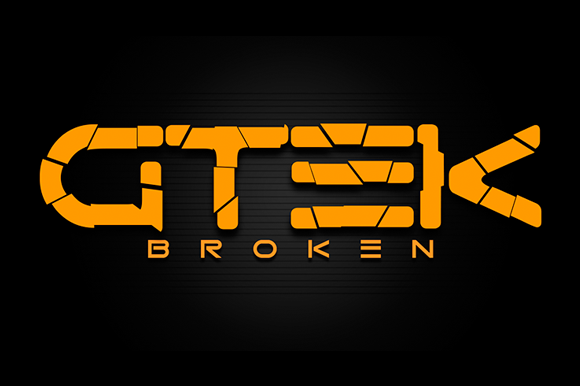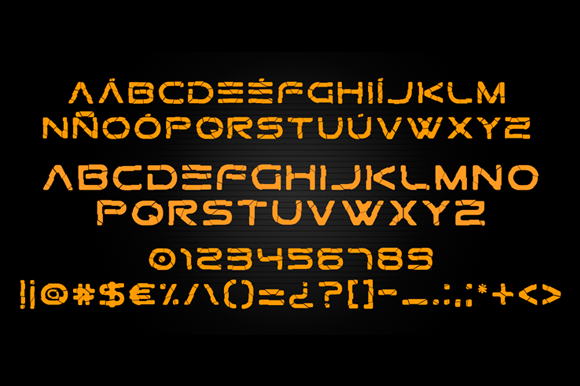
The Perfect Blend of Quirkiness and Readability: Unveiling the Gtek Broken Font
As designers, we’ve all been there – staring at a blank canvas, desperately seeking the perfect font to bring our creative vision to life. It’s that moment of epiphany when the right typeface clicks, and suddenly, the entire project falls into place. For those who crave a unique sans serif font that stands out from the crowd, the Gtek Broken Font is an absolute game-changer.
This quirky yet readable font is designed to make a statement, with its distinct characters and bold personality. Whether you’re crafting a bold headline or a stylish body text, the Gtek Broken Font is the perfect tool to elevate your design to the next level. Its versatility and charm make it an invaluable asset for designers looking to add a touch of personality to their work.
Gtek Broken Font Key Features
- Font Family: Gtek Broken Font is a sans-serif font family.
- Character Set: Supports a wide range of characters, including Latin, Cyrillic, and Greek alphabets.
- Unique Characteristic: The font’s unique “broken” aesthetic, achieved through subtle irregularities in letterforms, adds a touch of personality to digital designs.
Gtek Broken Font Review
Overall, I’d say the Gtek Broken Font has some great qualities, but it’s not without its flaws. ✨ First off, the font’s unique, distressed aesthetic is really eye-catching and can add a lot of character to any design project. The font’s irregularities also make it feel more human and less uniform, which can be a nice change of pace from more traditional fonts.
Another thing that works well is the font’s versatility. It can be used in a variety of contexts, from headings and titles to body text and even logos. The font also comes in a range of weights, which can be helpful for creating a consistent look throughout a design.
However, there are some limitations to consider. ⚠️ One of the biggest issues is the font’s legibility, particularly at smaller sizes. Some of the characters can be difficult to read, which may not be ideal for projects where clarity is crucial. Additionally, the font’s irregularities can sometimes make it feel a bit sloppy or unprofessional.
Overall, I’d say the Gtek Broken Font is a solid choice for designers looking to add some visual interest to their projects. However, it’s not a one-size-fits-all solution, and you may need to use it judiciously to get the best results.
- Unique, distressed aesthetic
- Good for adding character to designs
- Comes in a range of weights
- Can be used in a variety of contexts